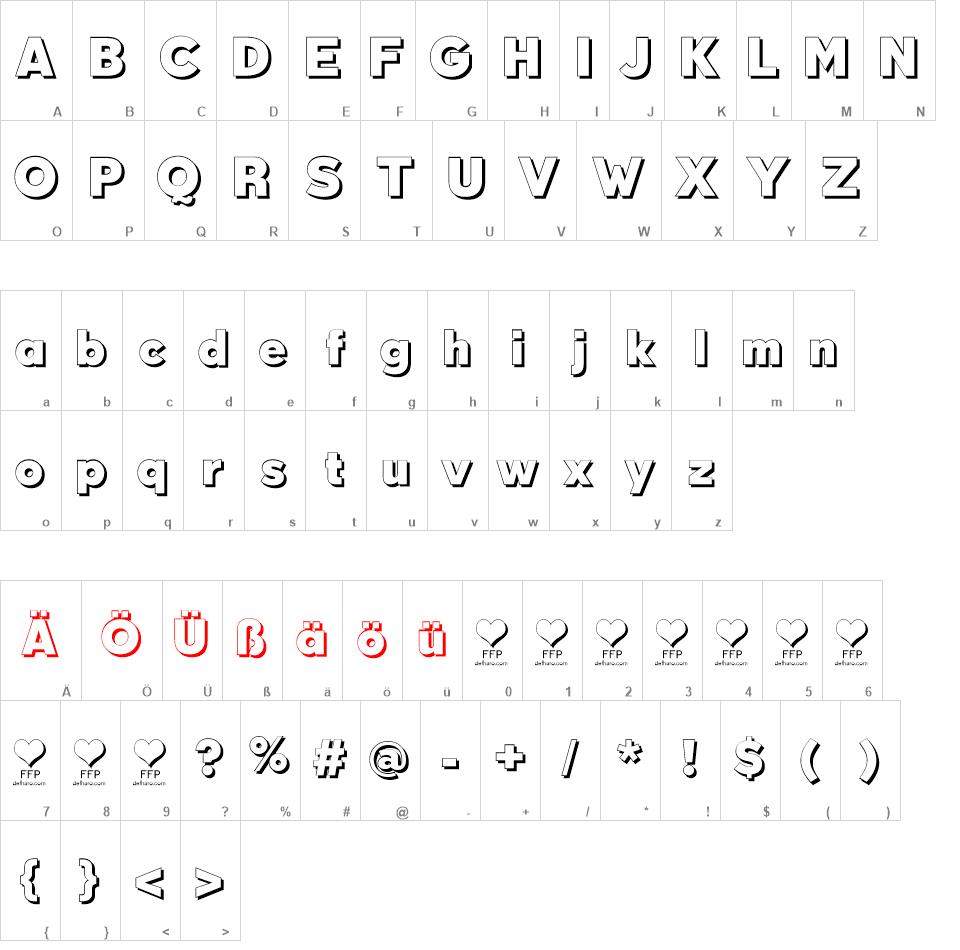
Durum Kebab
Durum Kebab is a very thick Sans-serif shady typography. The font has many currency symbols including Bitcoin symbol. Very readable perfect display font for headlines.